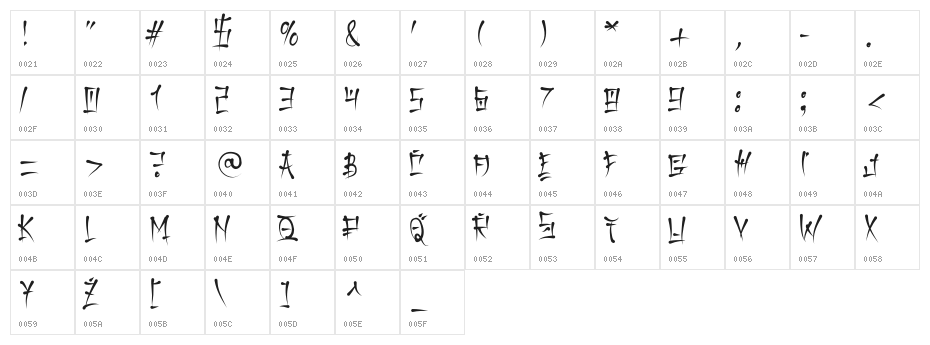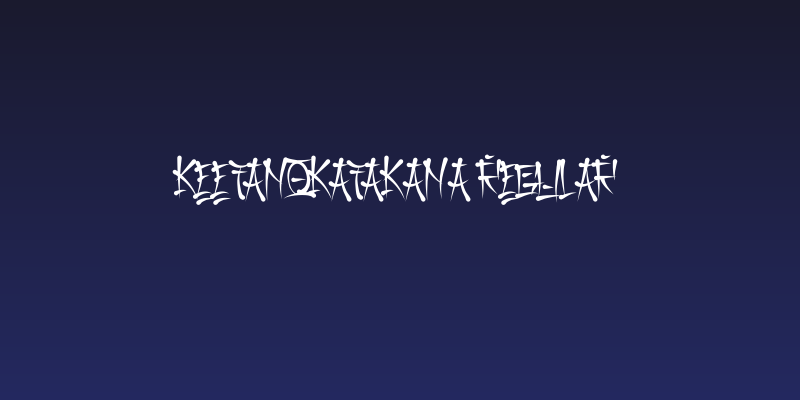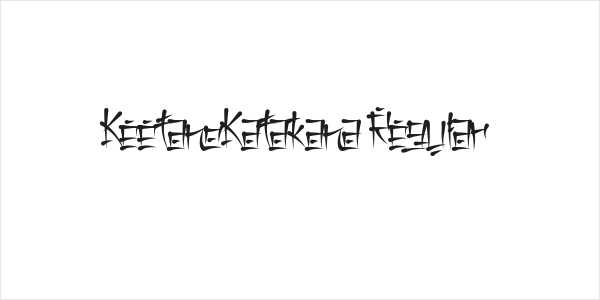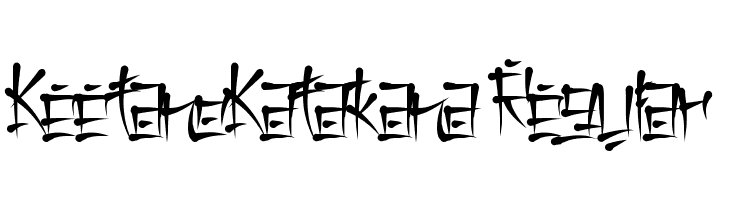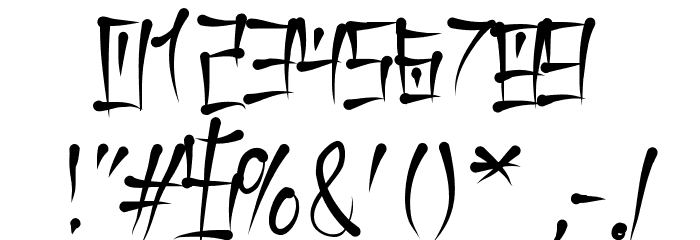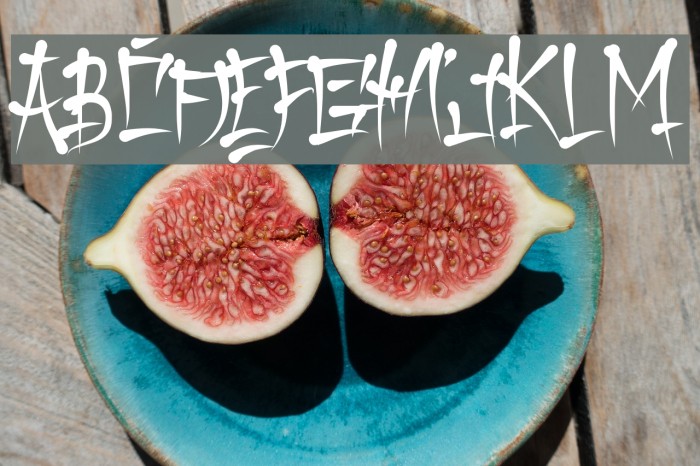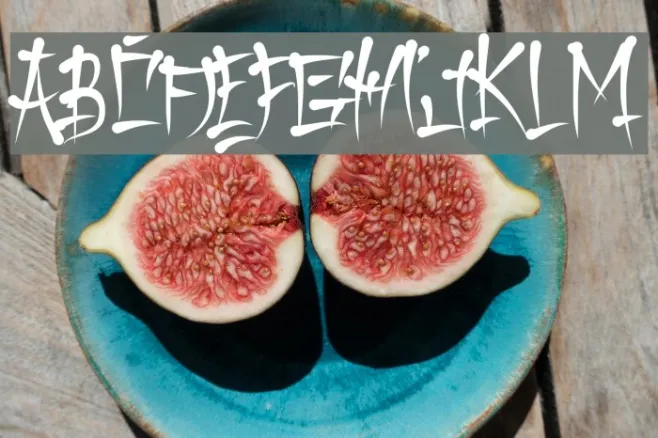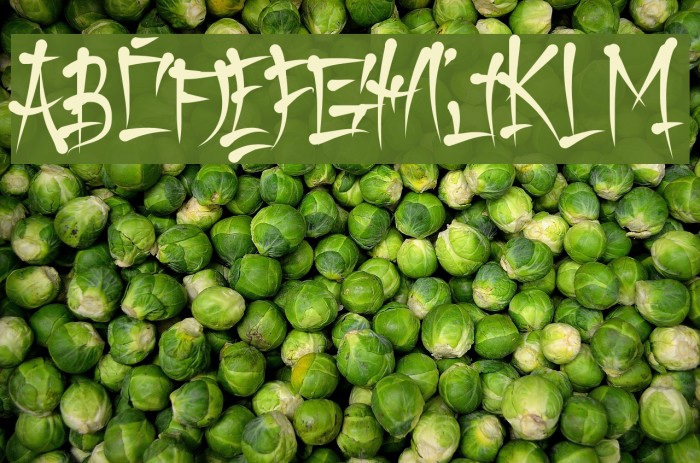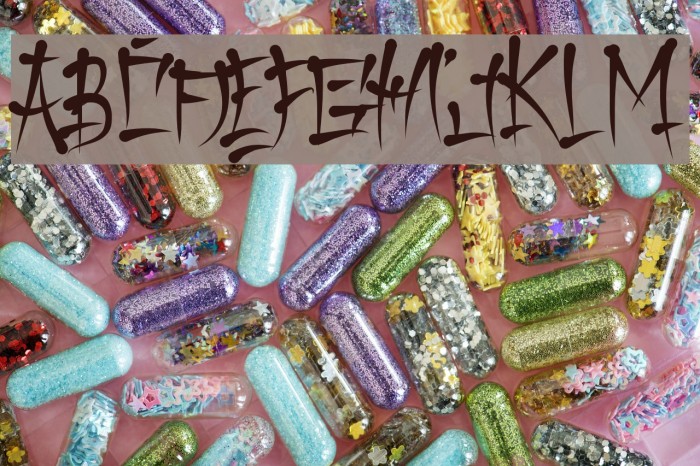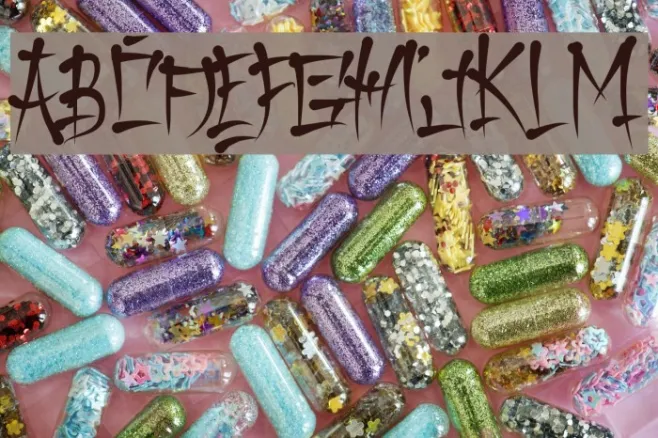
KeetanoKatakana Regular Font
KeetanoKatakana Regular Description
This font exhibits a bold, artistic style with a strong influence from traditional Japanese calligraphy. The characters are dynamic and fluid, featuring sharp, angular strokes that convey a sense of movement and energy. The uppercase and lowercase letters maintain a consistent aesthetic, with a unique blend of thick and thin lines that create a striking visual contrast. The numerals and special characters follow the same design principles, ensuring a cohesive look across all glyphs. This font's distinctive style makes it ideal for projects that require a bold and expressive typeface.
| Proposed Projects | Ideal for artistic projects, branding, posters, and any design work that requires a bold, expressive typeface. |